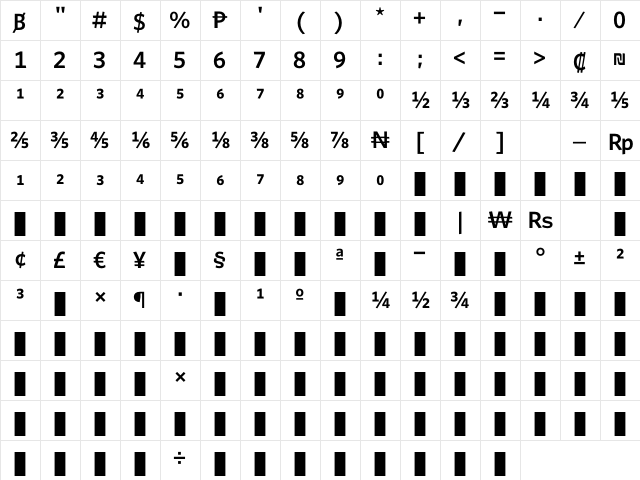
Complete WhitneyNumeric Semibold glyph index. Displaying only characters natively supported by WhitneyNumeric Semibold font.
WhitneyNumeric is a composed and adaptable typeface that performs quietly and consistently across a wide range of design contexts. Its bold stroke weight gives it real presence on the page.